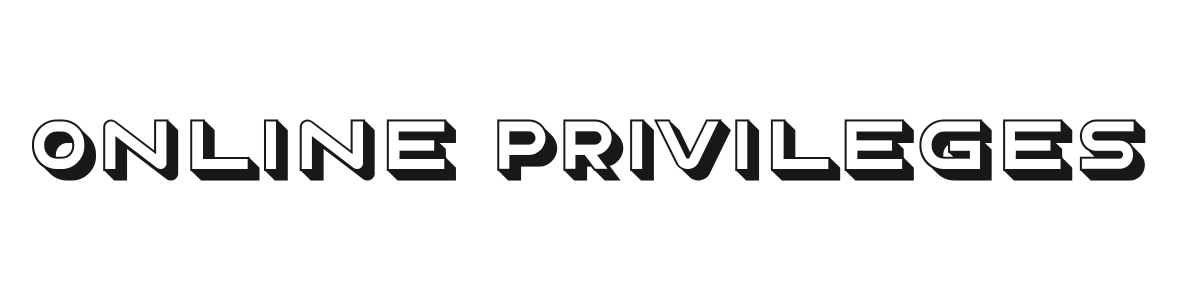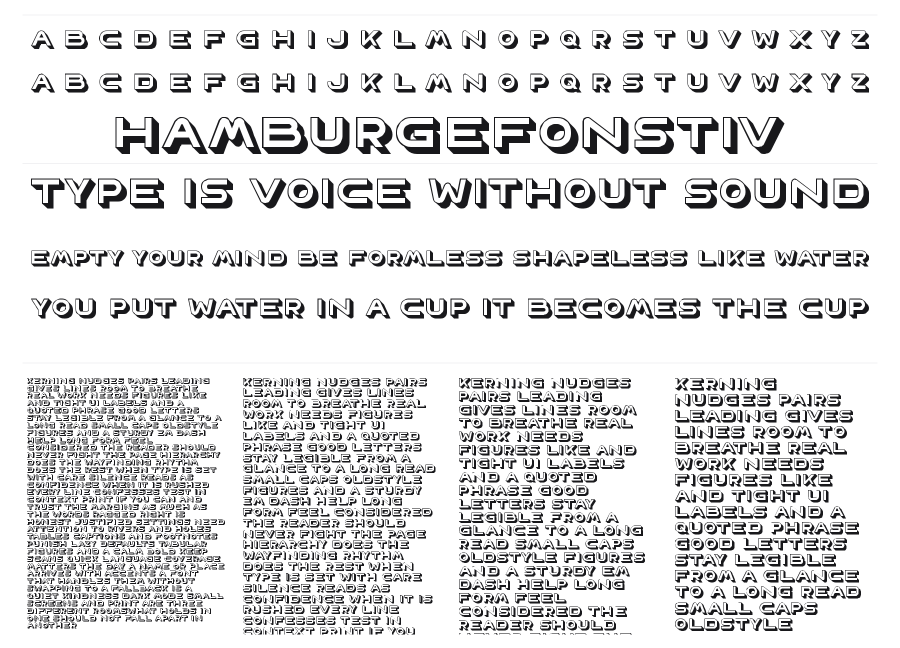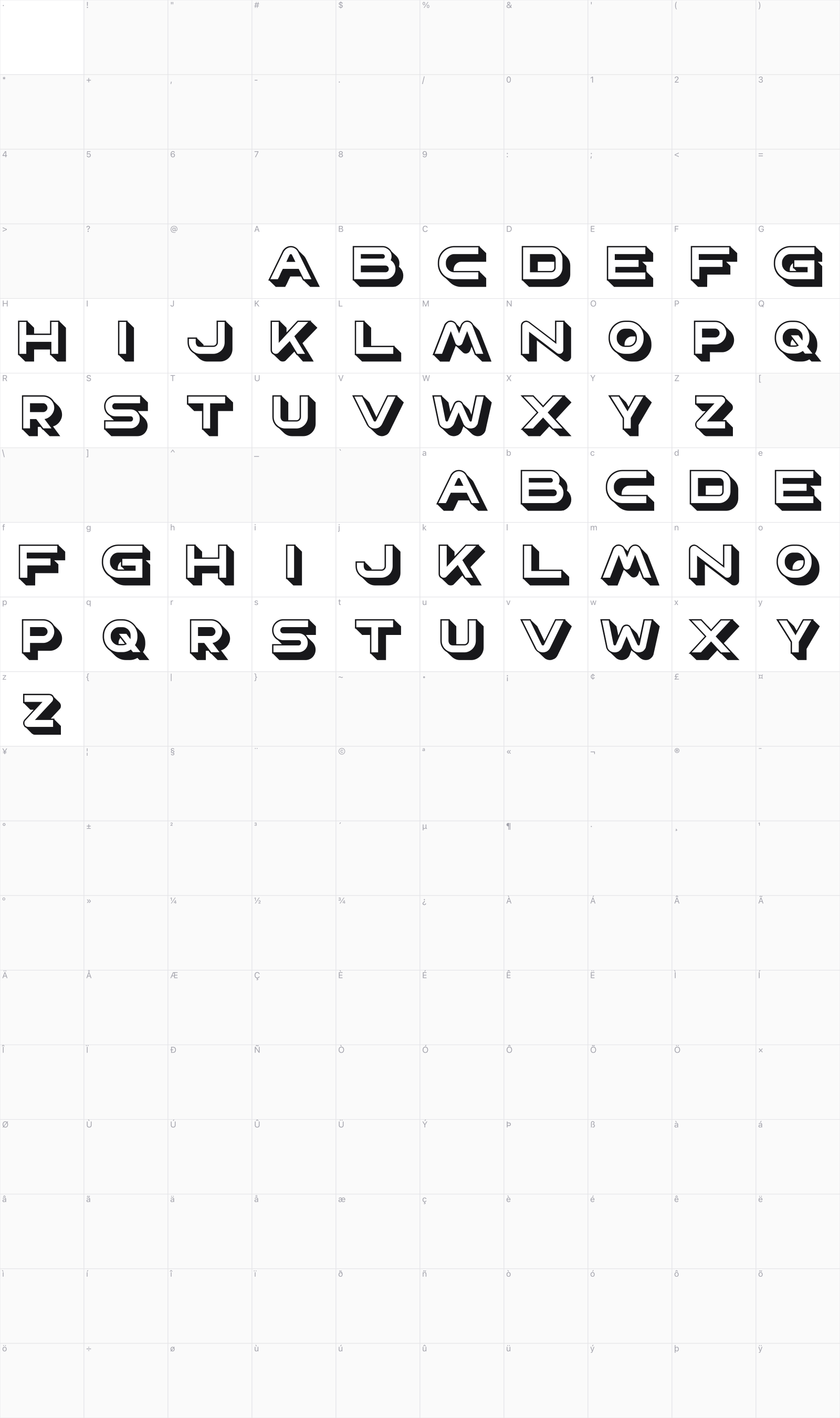
Online Privileges
Online Privileges is a chunky retro display font built around bold rounded geometry and a dramatic 3D shadow effect. Each character is layered with an inline white stripe cutting through a thick extruded mass, channeling the spirit of 1970s and 80s arcade signage and neon lettering. It commands attention at large sizes and carries a high-energy, pop-culture personality.